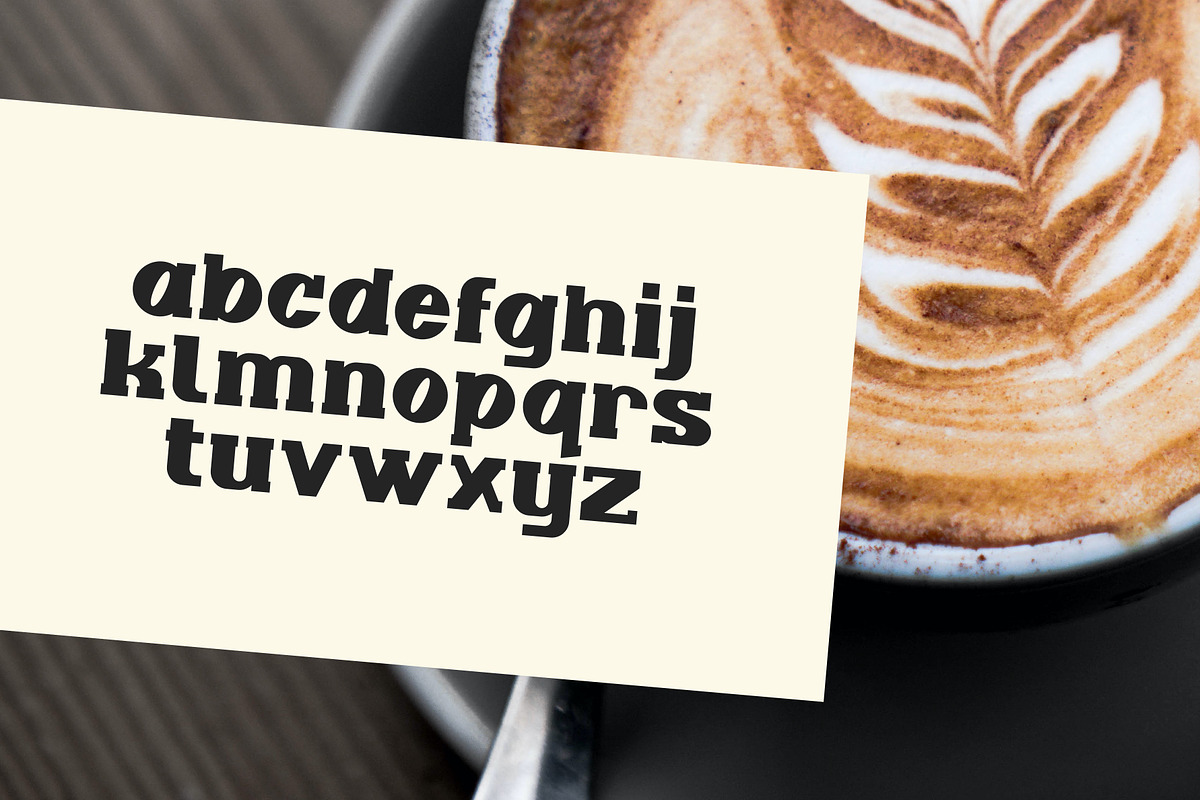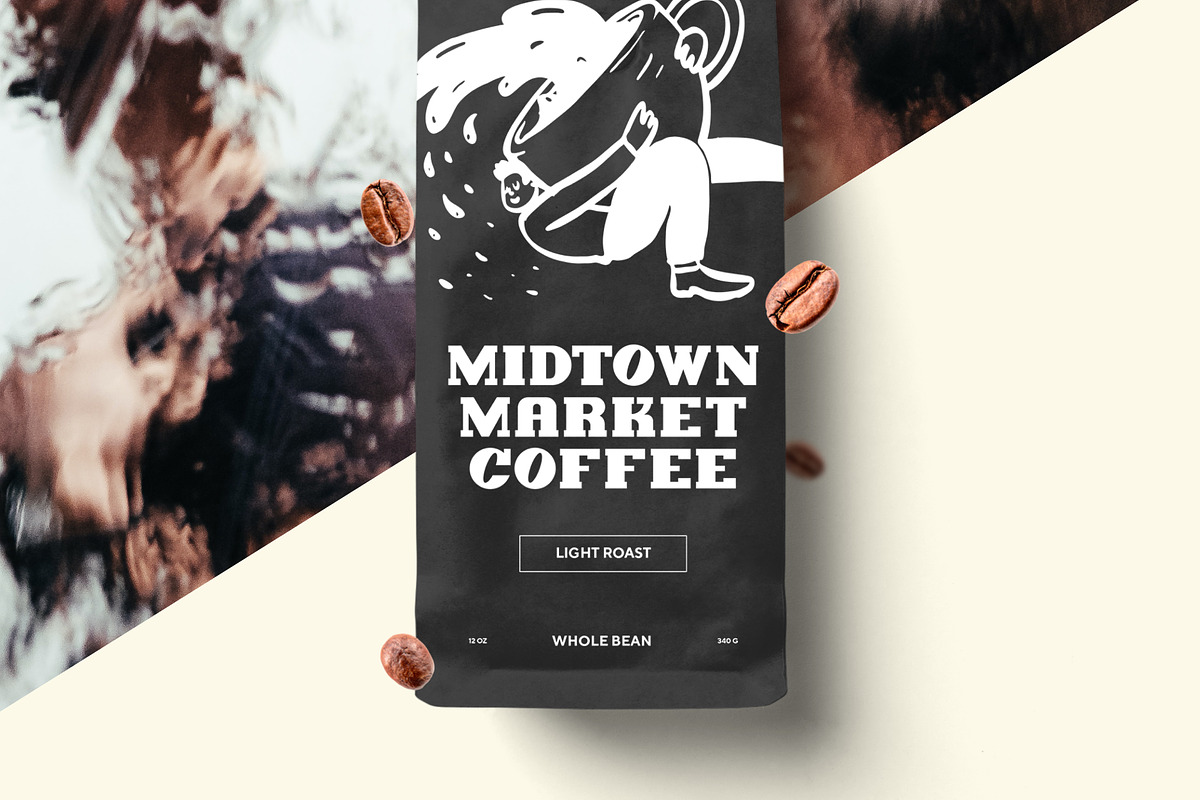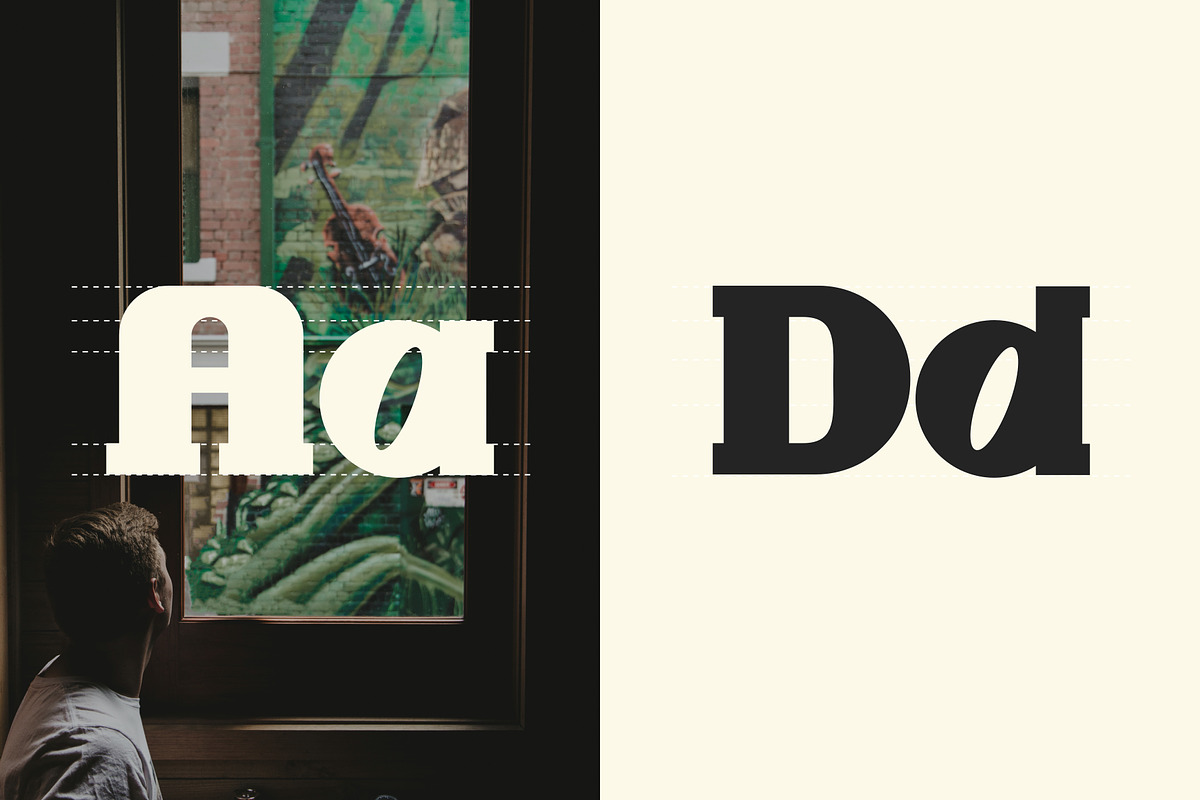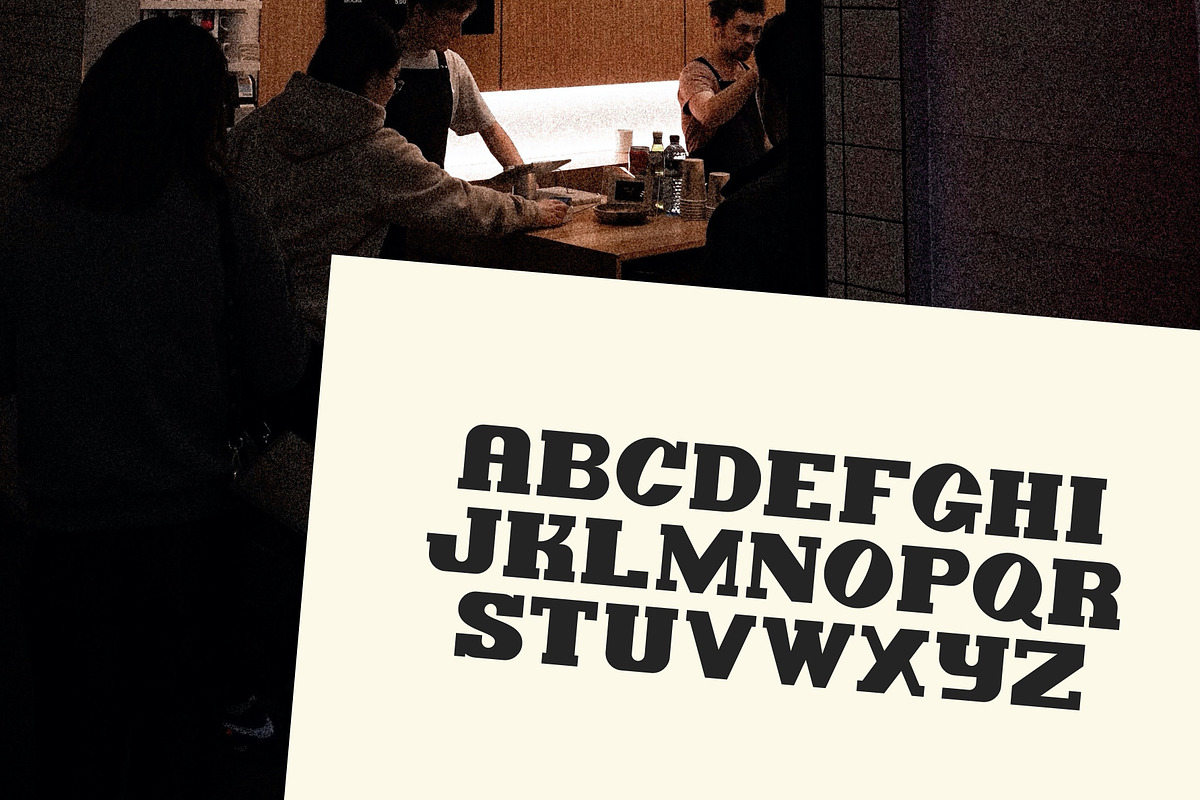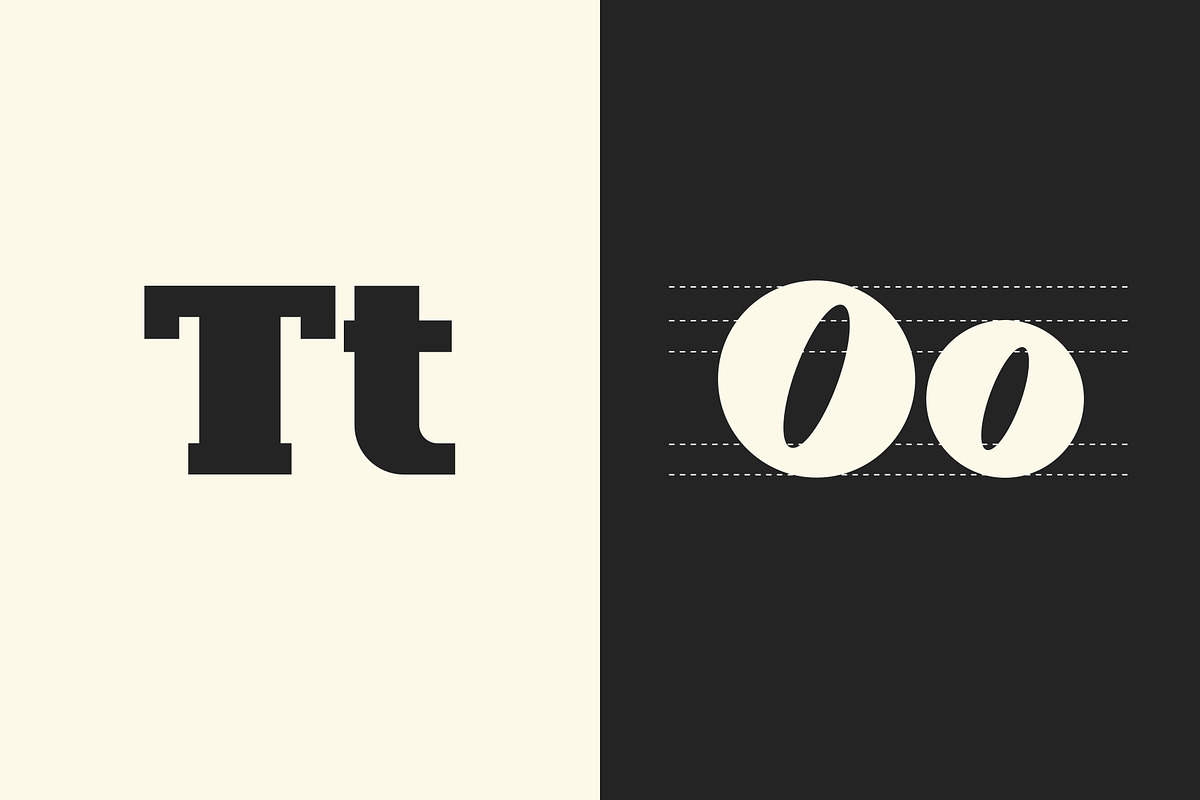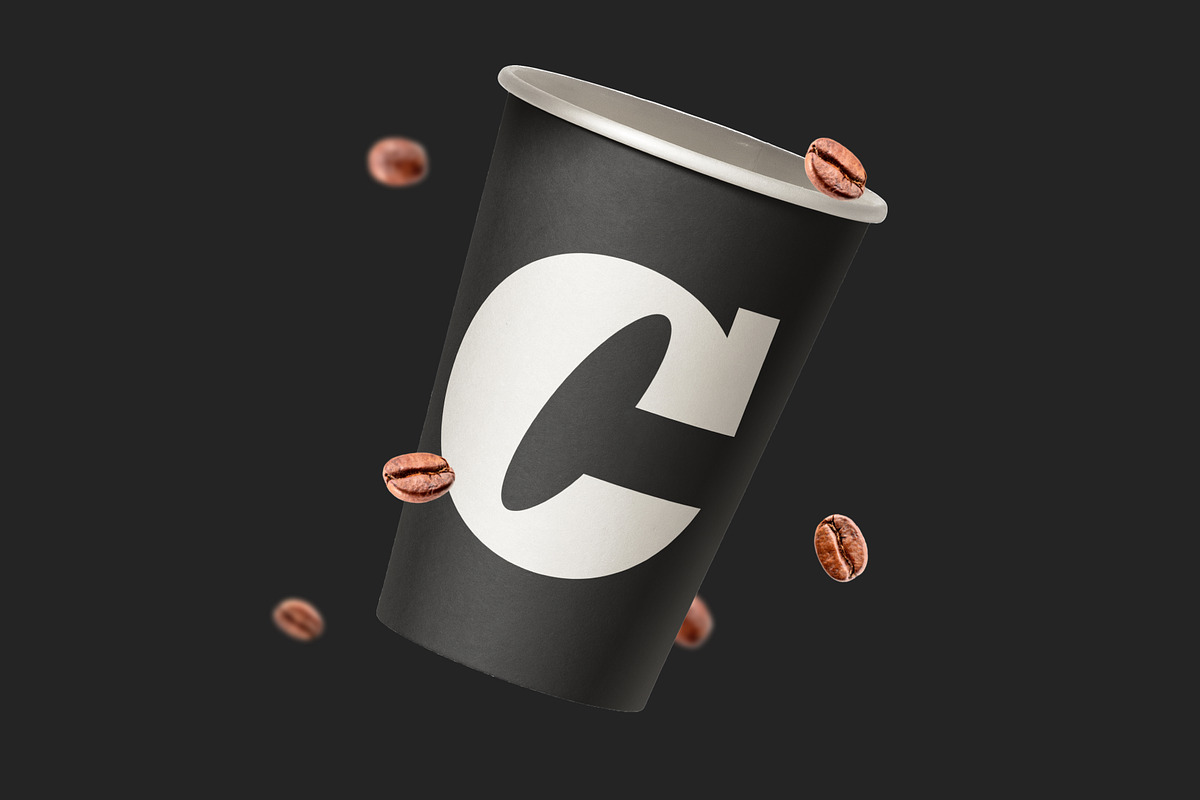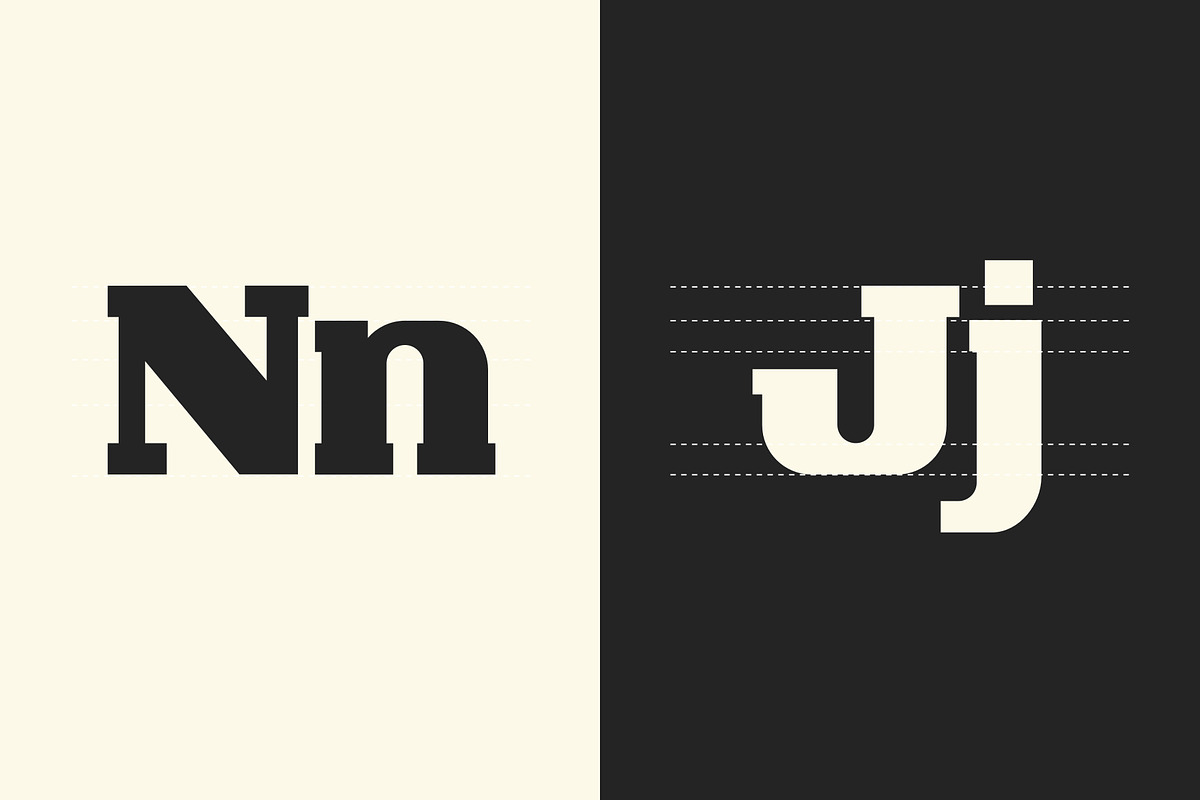
Kilda Roast | Slab Serif Font
KILDA ROAST - A Slab Serif Typeface
KILDA ROAST is a modern slab serif font inspired by coffee bean shapes and the Melbourne coffee shop culture. It is most suited as a decorative display font for editorials or packaging design. It has a uppercase and lowercase display with over 100 unique characters, numerals & glyphs.